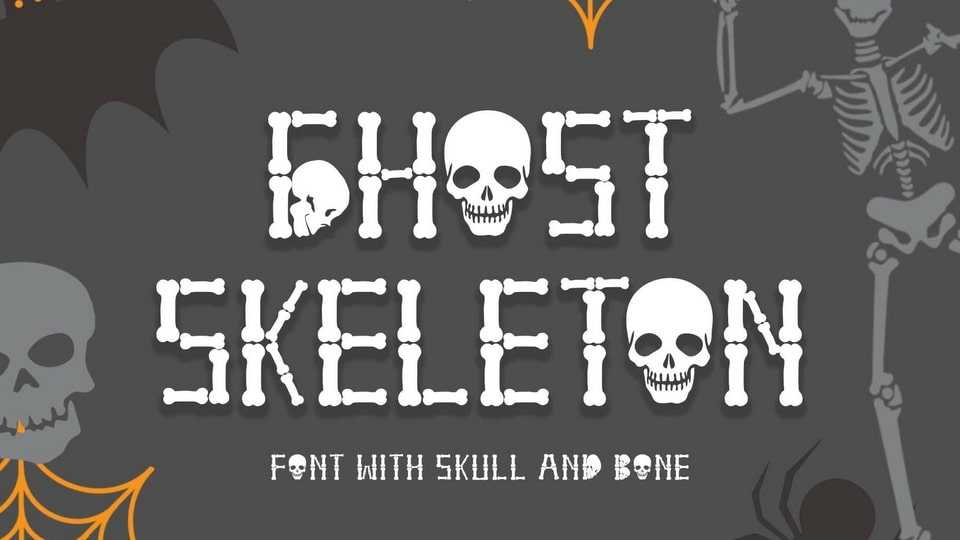
Download Ghost Skeleton font, a display typeface made from bones and skull shapes. Very suitable for Halloween, comics, movie titles, invitations, social media and more.